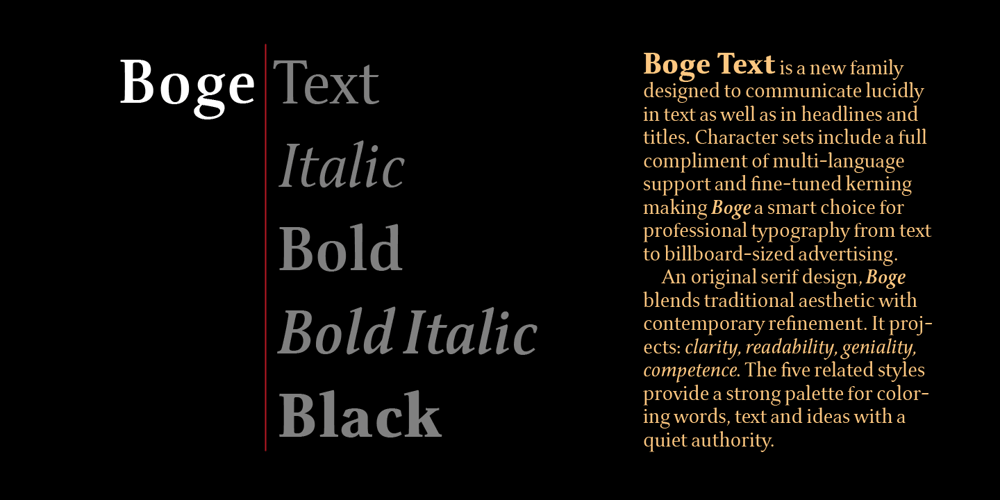
Boge LP
Boge LP font
Boge LP Font Family was designed by Garrett Boge and published by LetterPerfect. Boge LP contains 5 styles and family package options. Boge LP is a new font family designed to communicate lucidly in text as well as in headlines and titles. The family consists of Regular, Italic, Bold, Bold Italic & Black. Character sets include a full compliment of multi-language support and fine-tuned kerning to make Boge™ a smart choice for professional quality typography from text to billboard-sized advertising. Regular and Bold styles include designed small caps and old-style numerals accessed as OpenType features.An original serif design, Boge blends traditional aesthetic with contemporary refinement. Its hallmarks are: clarity, readability, geniality, competence. The five related styles provide a strong palette for coloring words, text and ideas with quiet authority. Garrett Boge has been designing type for over 30 years, working with Apple, Microsoft, Adobe, Disney and numerous corporate clients. His background in calligraphy, commercial lettering, graphic design, and typography has been channeled into creating this namesake design. Boge Text joins his other popular faces — Spring, Florens, Bermuda, Spumoni, Longhand, Tomboy, Wendy — under the LetterPerfect Fonts brand, marketed through Monotype and its partners.